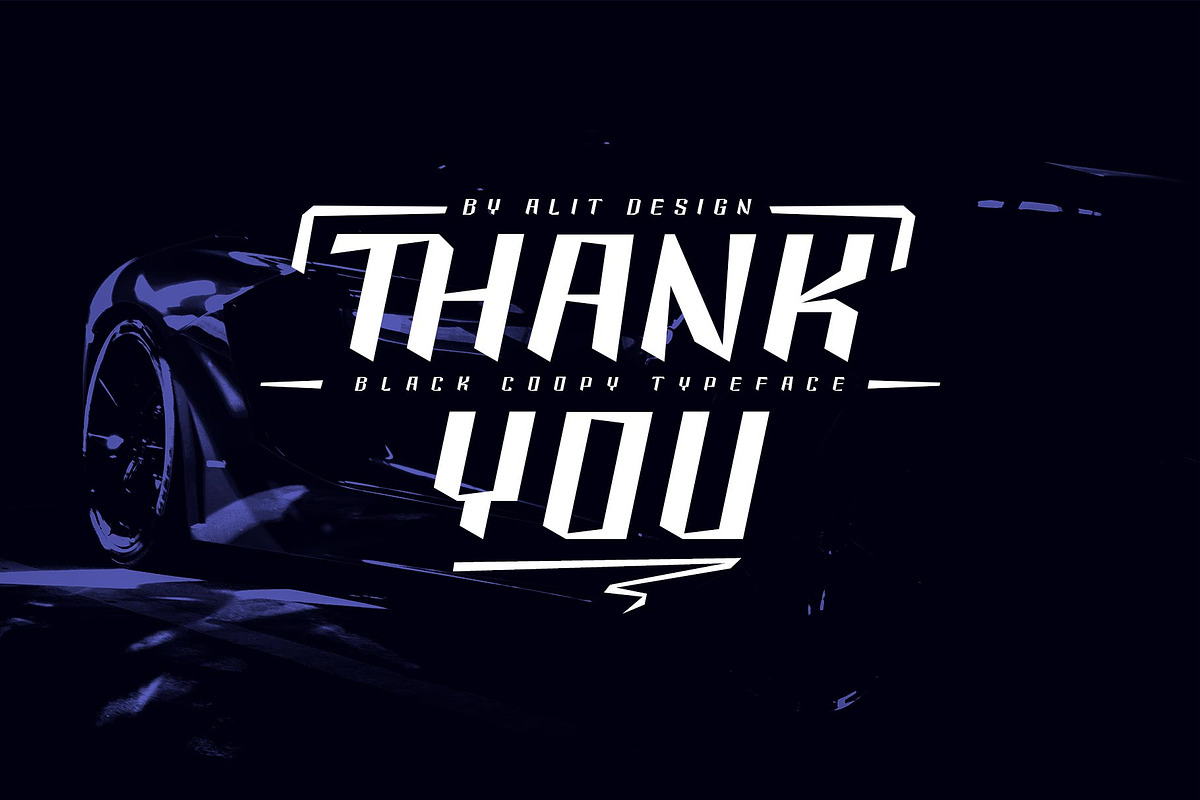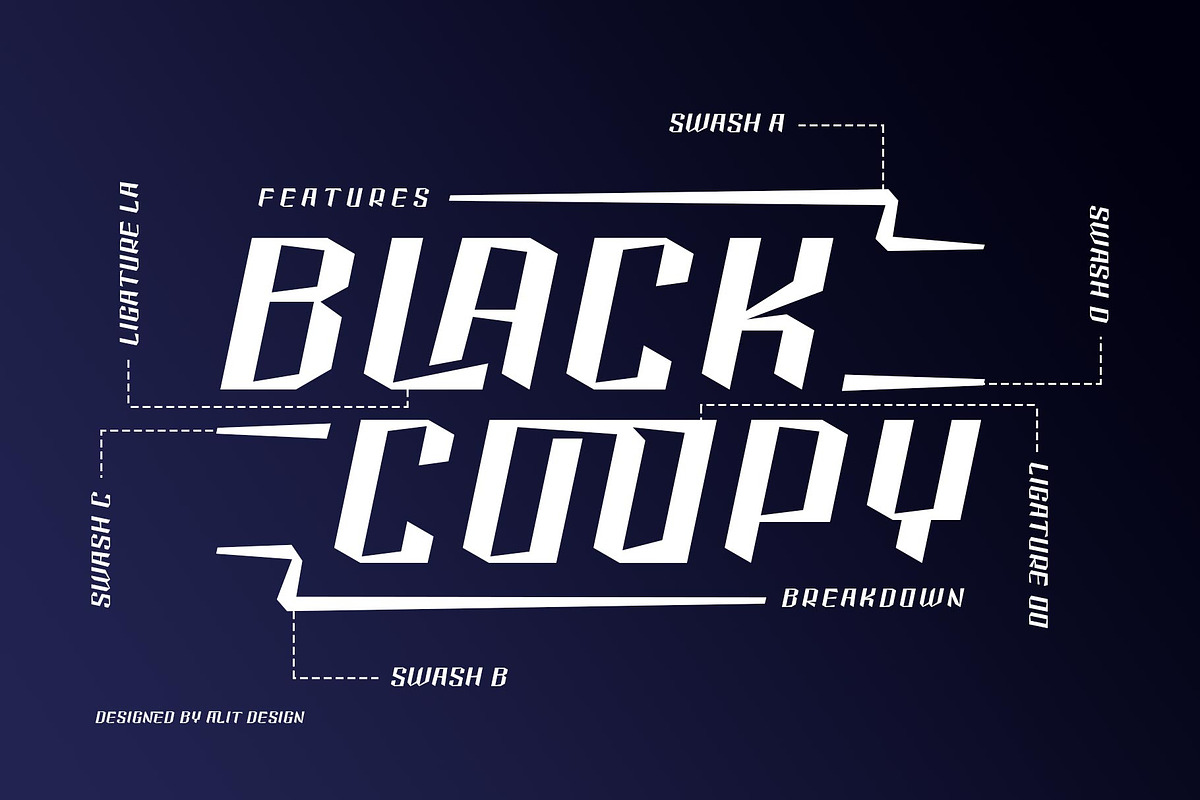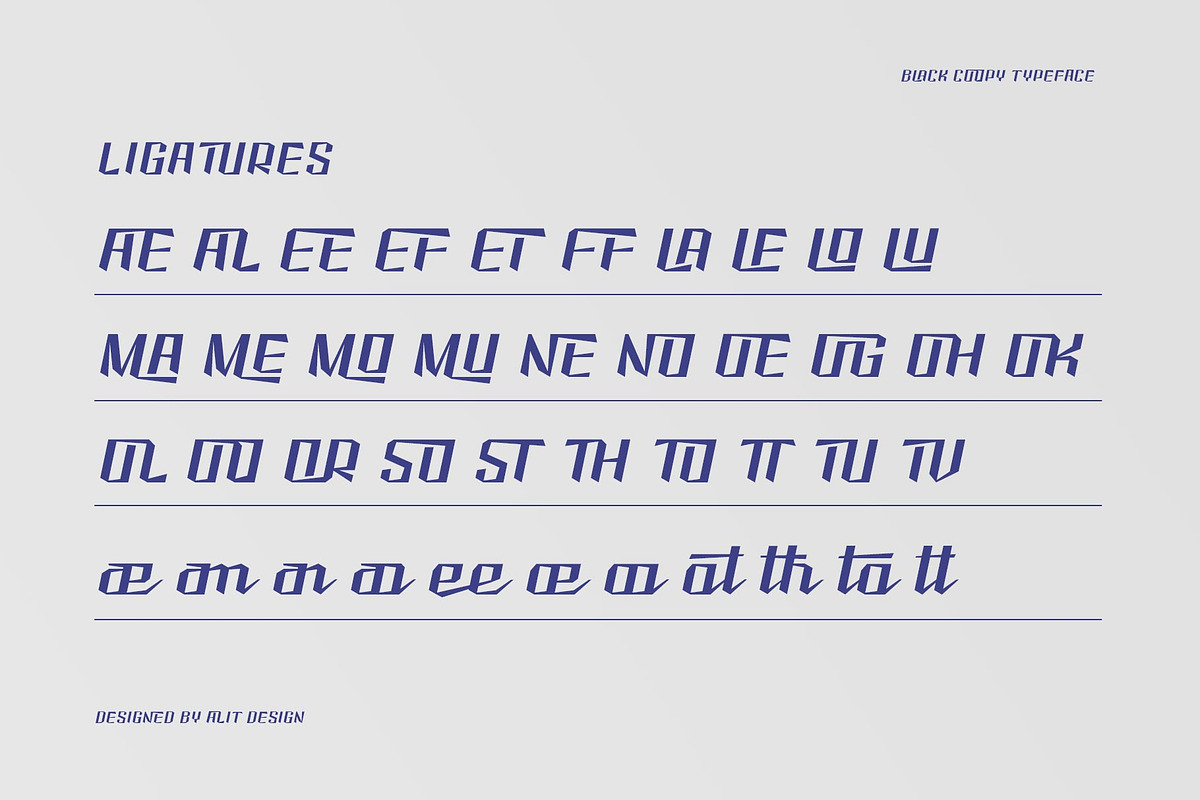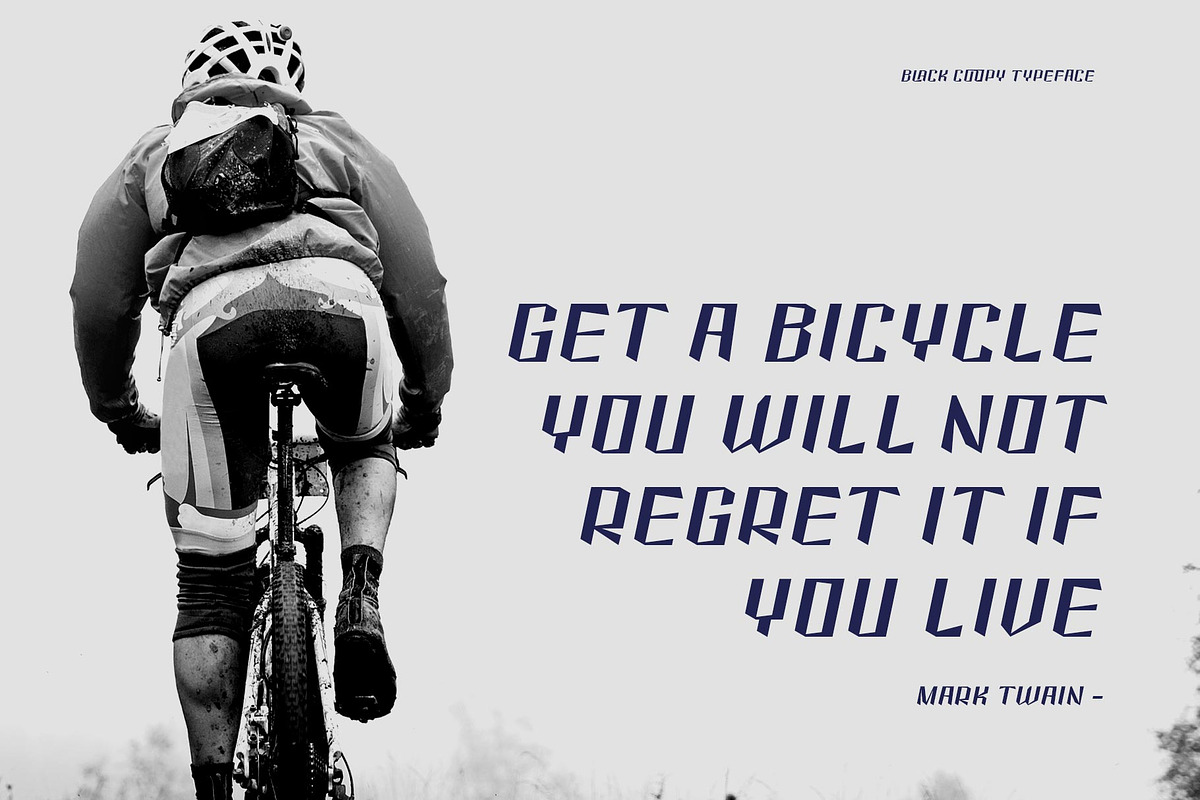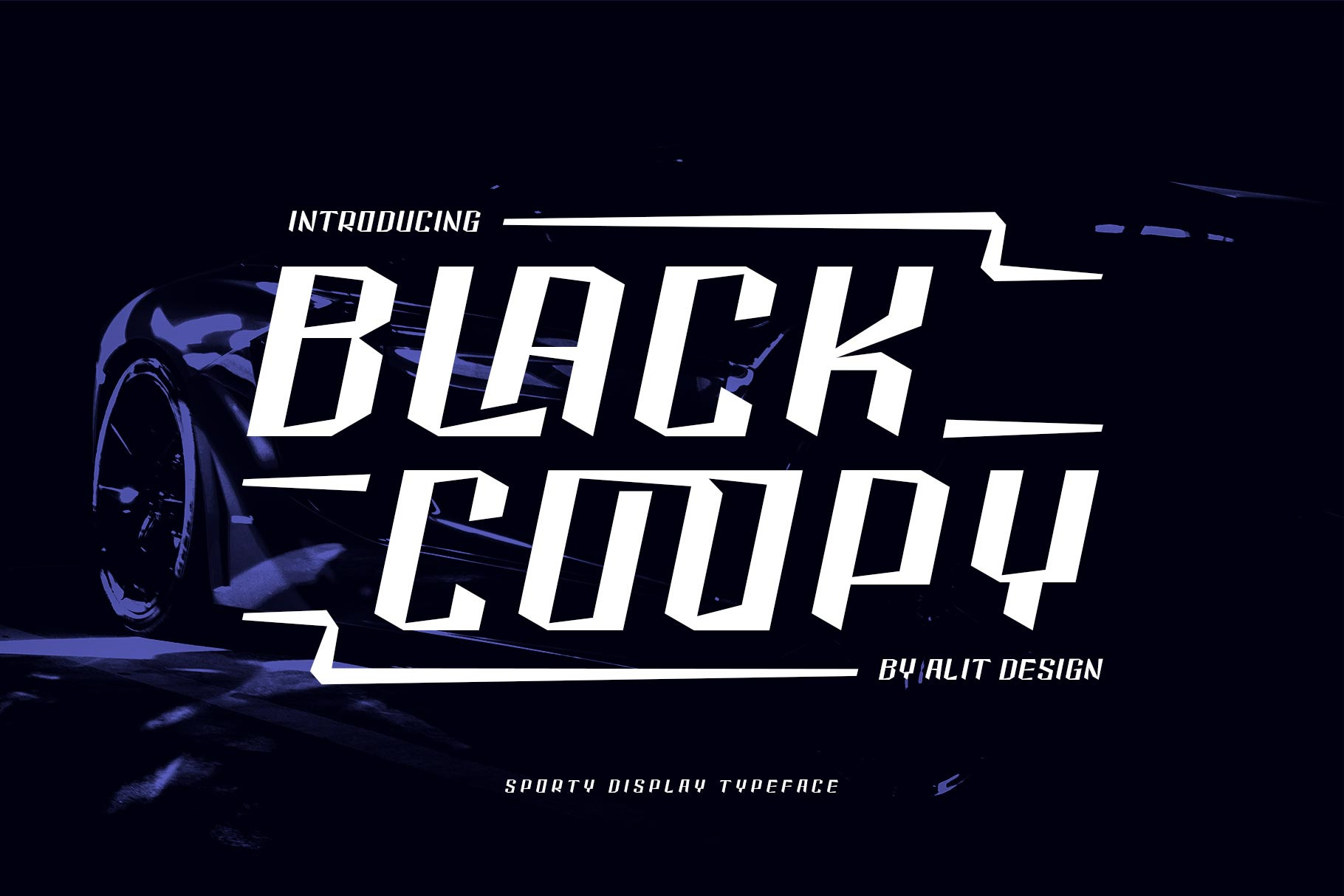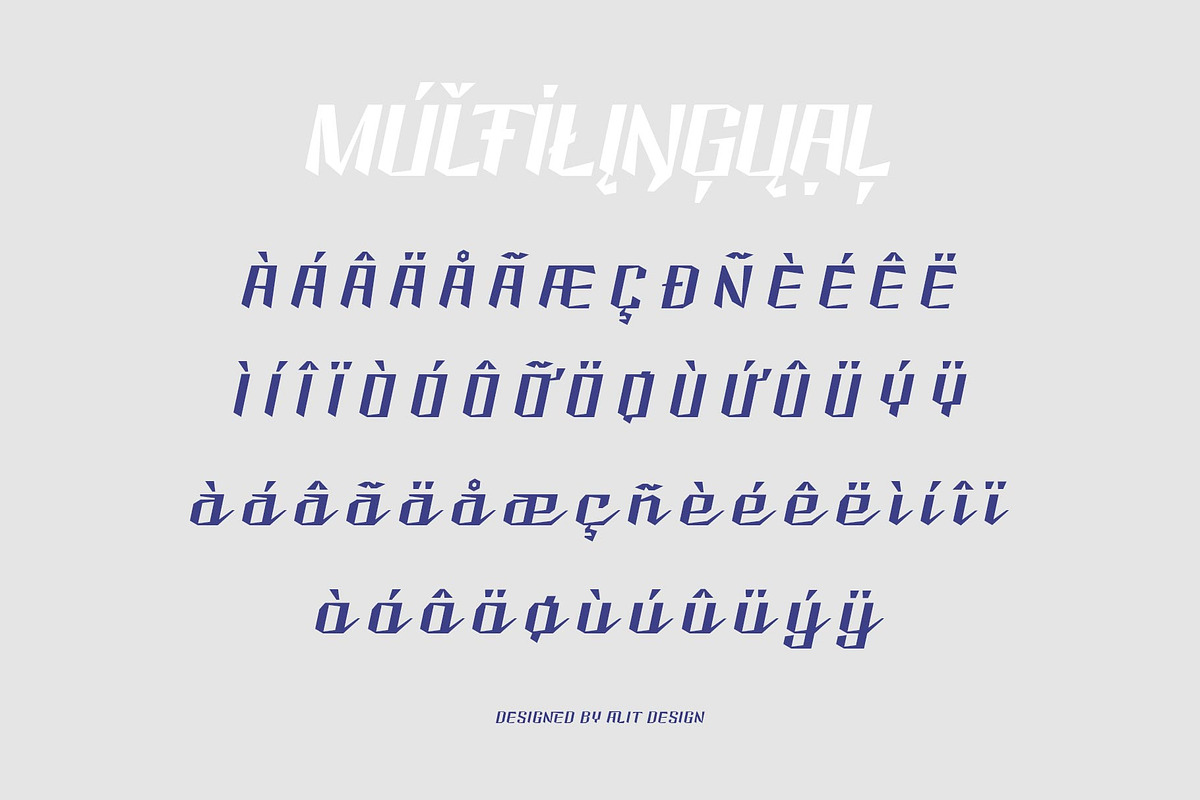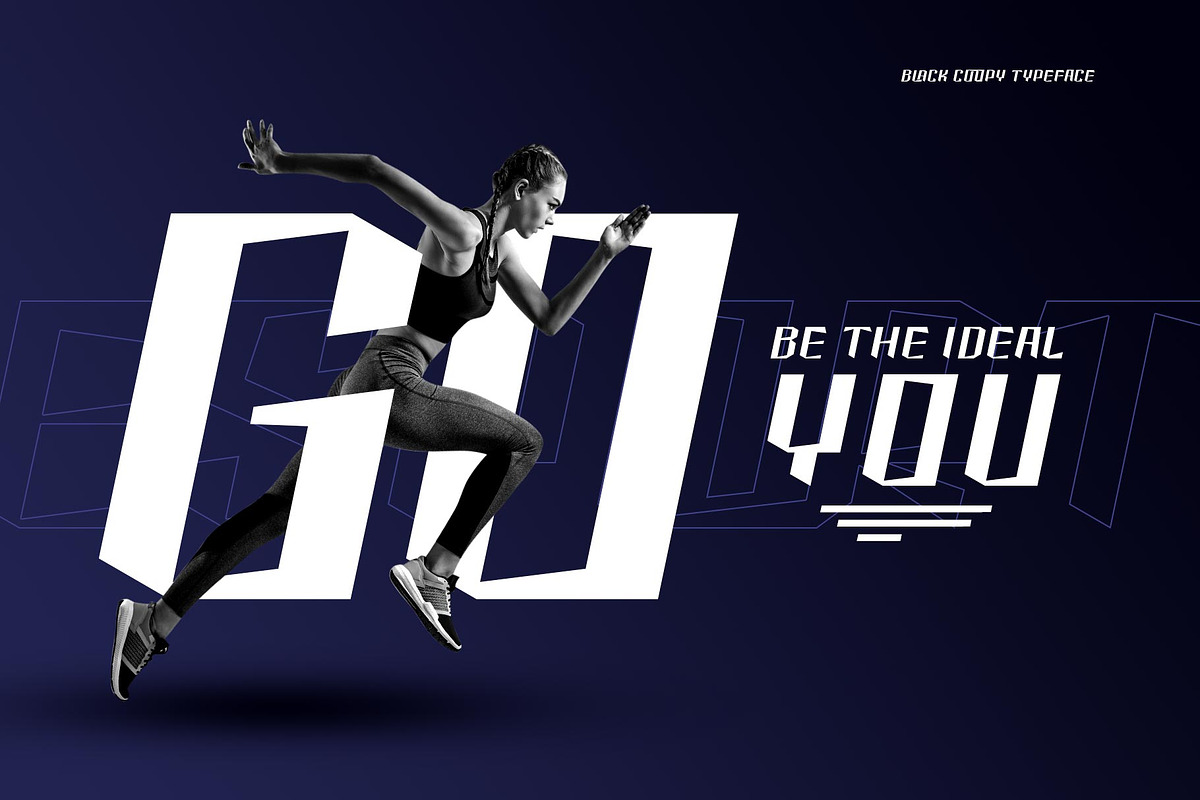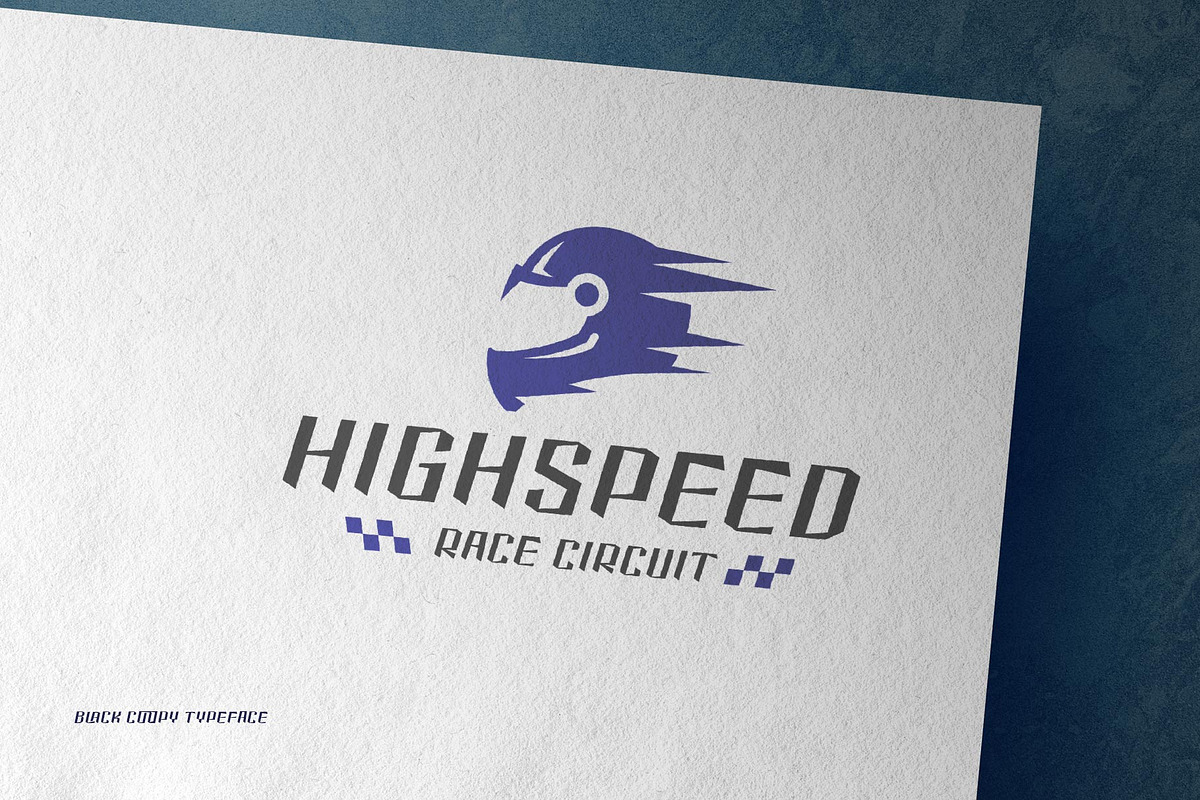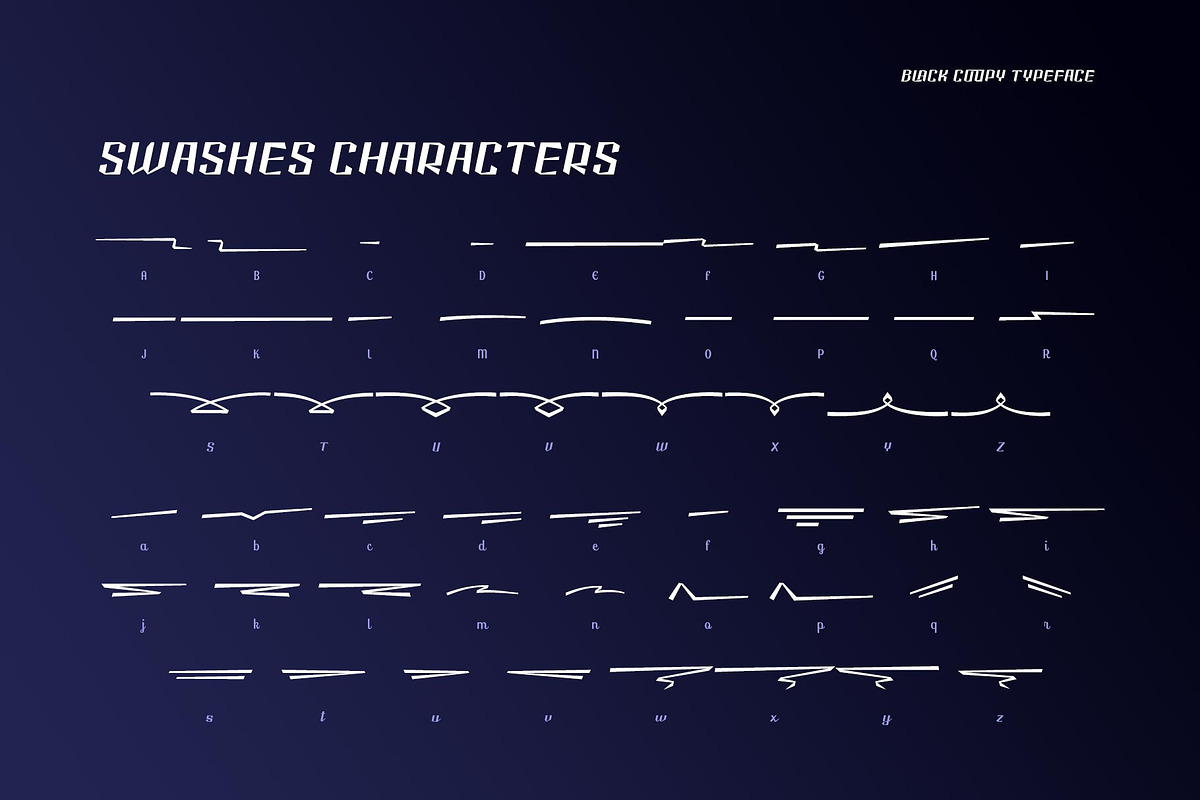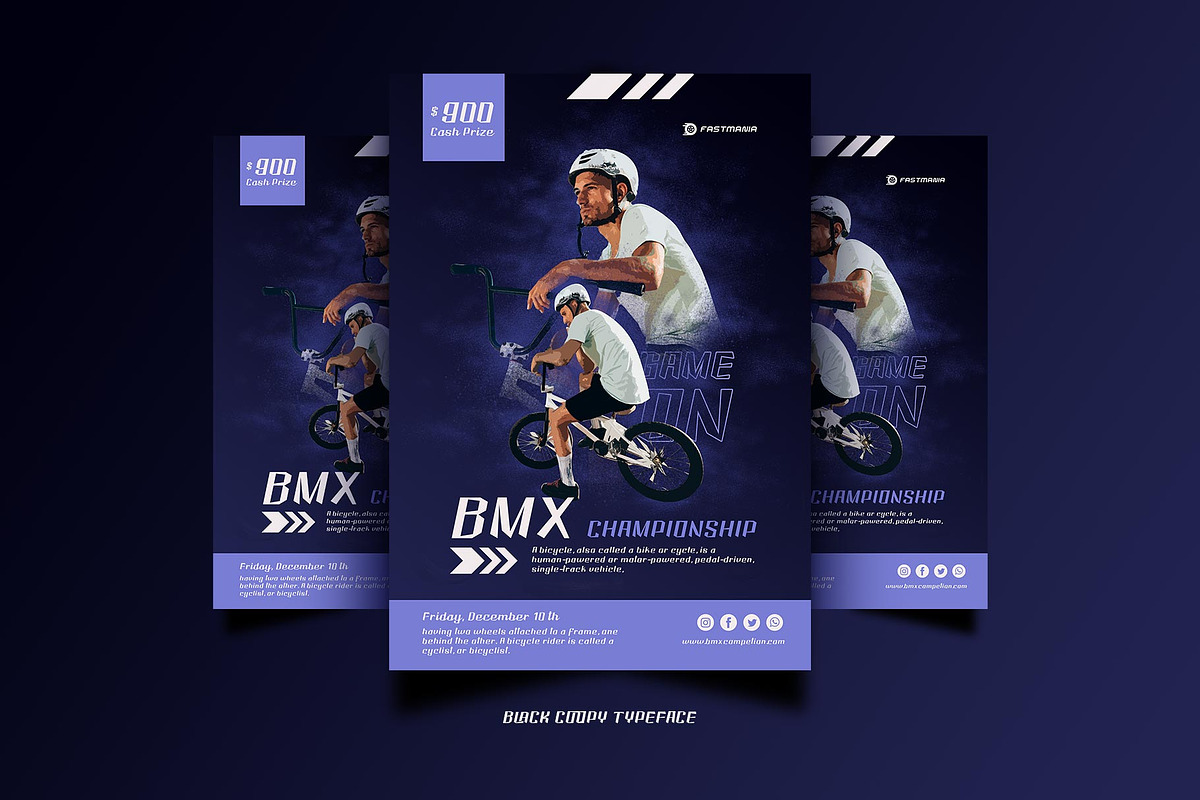
Black Coopy Typeface
Introducing Black Coopy Typeface
🏁The Black Coopy Typeface 🏁 is inspired by the sporty racing display font. This bold and strong font with an impression of speed is perfect for making sports racing themed designs. Can be used for making logo designs, car stickers, racing event titles and so on with sport race themes.